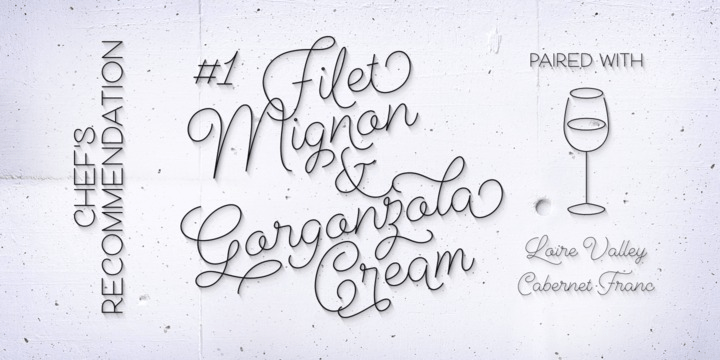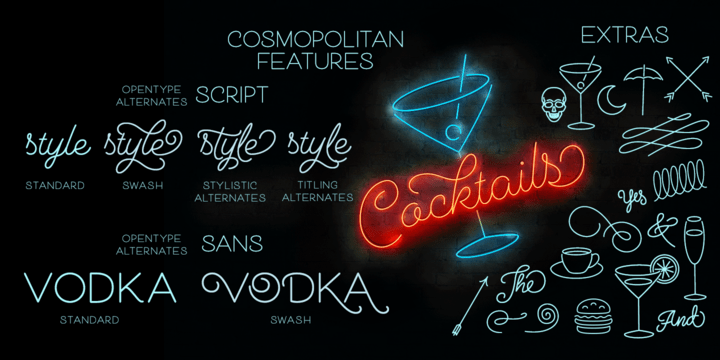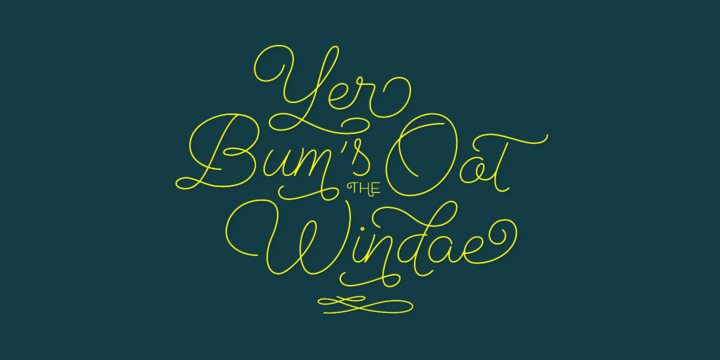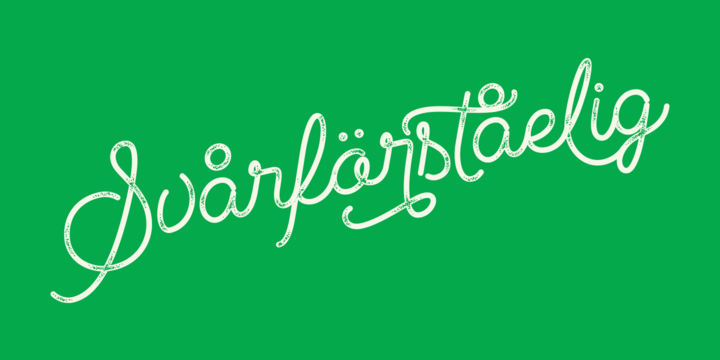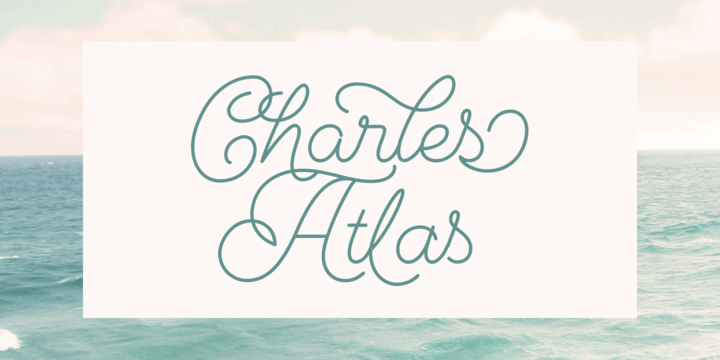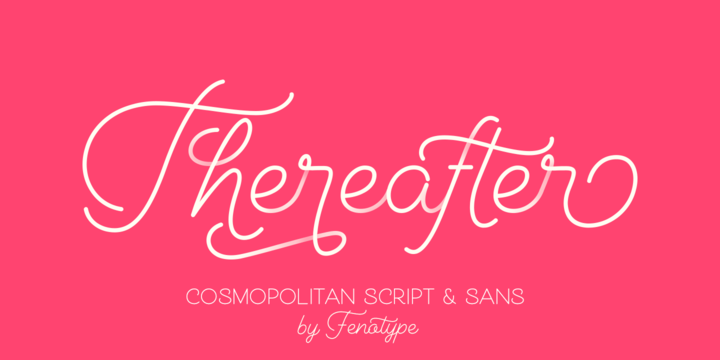
About Cosmopolitan
Cosmopolitan is a monoline font family with script and sans versions that both work great together or alone. It comes with five weights and ?printed? versions. For extra swashes, swirls and pictograms there is Cosmopolitan Extras. Cosmopolitan Script…